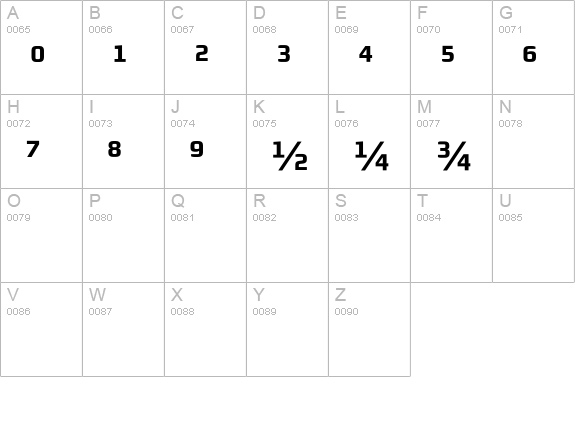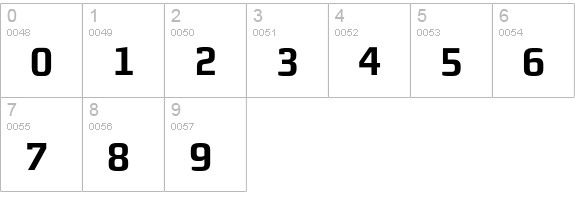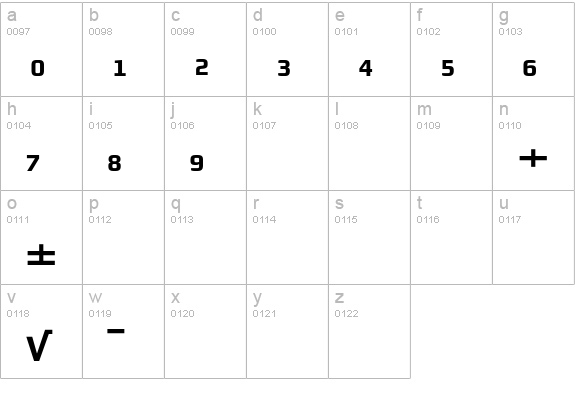
MorganAvec BoldFigures Font Details
MorganAvec BoldFigures is a striking and modern font that exudes confidence and sophistication. With its bold figures and sleek design, this font is perfect for making a statement in any project. The sharp lines and attention-grabbing details of MorganAvec BoldFigures make it a versatile choice for a wide range of design applications. And the best part? MorganAvec BoldFigures is completely free to download at FontsMarket.com. Embrace the boldness and elegance of this font in your next project and make a lasting impression with MorganAvec BoldFigures.